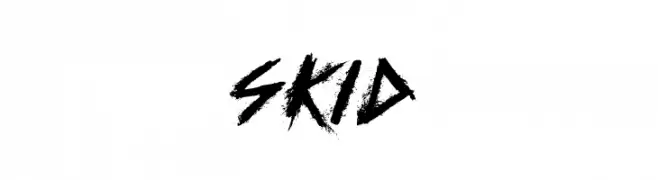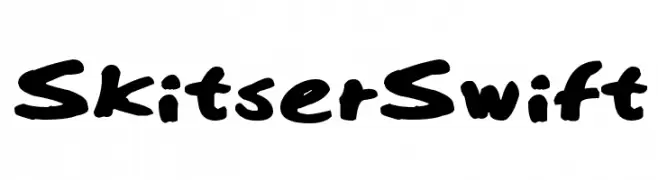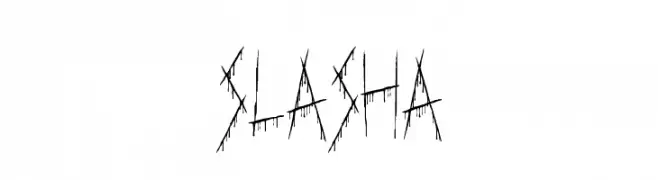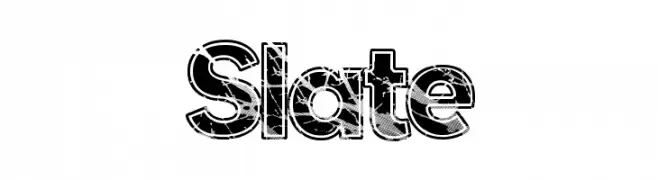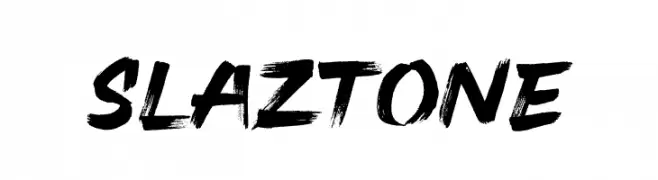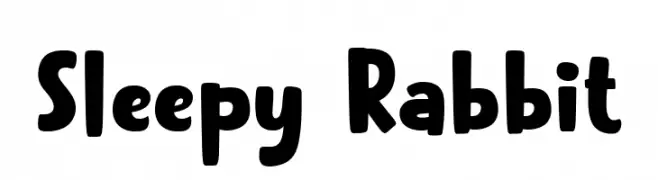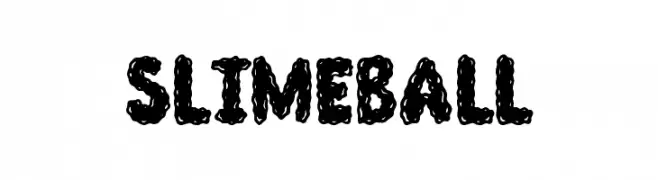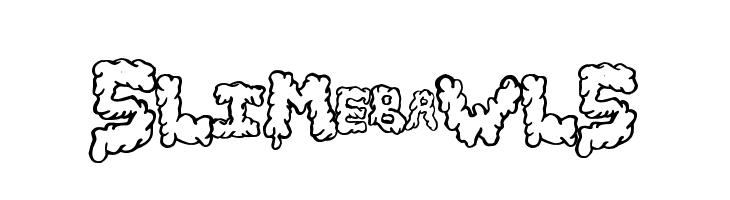
A bold, brush-stroke font with a dynamic, textured appearance.
A bold, handwritten font with a playful and dynamic style.
A decorative font featuring unique skull illustrations with a punk aesthetic.
A collection of decorative skull icons with a punk aesthetic.
An edgy, jagged font with a dripping, grungy aesthetic.
A bold, distressed font with a grunge texture and strong outlines.
A bold, brush-style font with dynamic and textured strokes.
A playful, star-decorated font with bold, rounded letters.
A playful, rounded font with a hand-drawn, whimsical style.
A playful, bold font with irregular, blob-like shapes and a fluid, organic style.